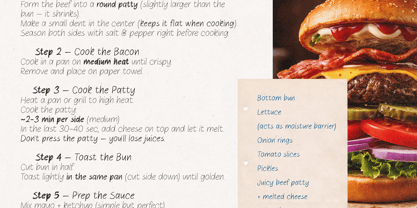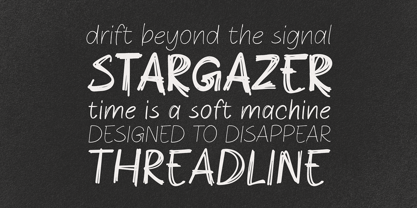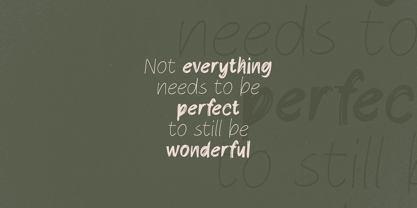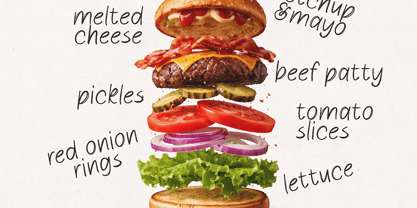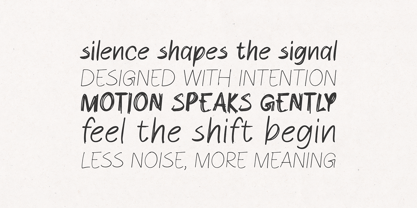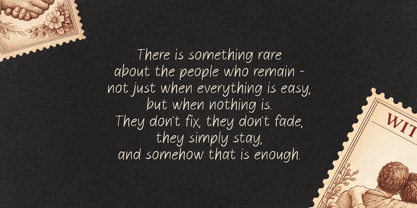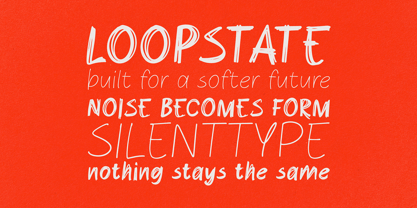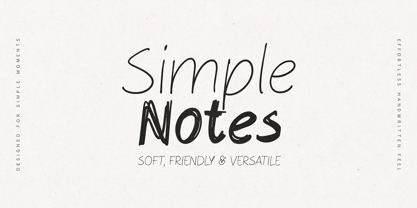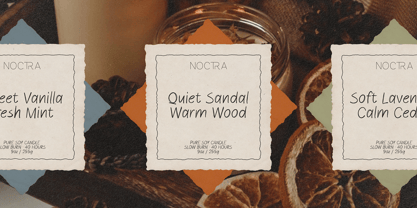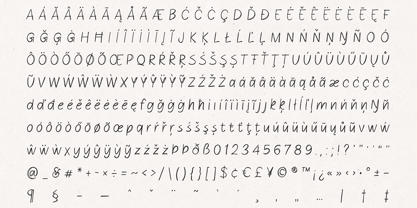
Simple Notes
by VP Creative Shop
The Simple Notes Font Family was designed by Vladimir Fedotov, Plamen Petrov and published by VP Creative Shop. Simple Notes contains 5 styles and family package options. More about this family
Simple Notes – Soft Handwritten Font
Simple Notes is a soft, friendly handwritten font designed to bring a natural and effortless feel to your designs. With its clean strokes and organic imperfections, it captures the charm of real handwriting while remaining highly legible and versatile.
Perfect for both casual and professional use, Simple Notes works beautifully across a wide range of creative projects - from branding and packaging to social media, quotes, and lifestyle designs.
Designers: Vladimir Fedotov, Plamen Petrov
Foundry: VP Creative Shop